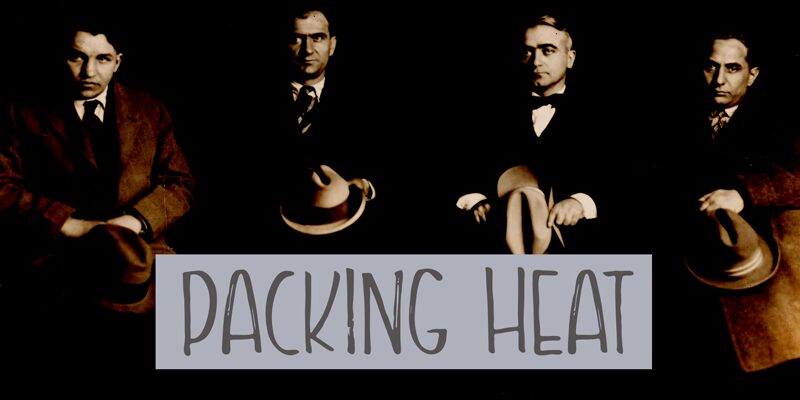
Packing Heat DEMO Regular
Packing Heat, designed by Hanoded, is a brush font that exudes a raw and energetic aesthetic with its semi-light weight. Its hand-brushed strokes offer an organic feel, bringing an authentic touch to any design. The font's irregularities and fluidity echo the spontaneity of ink on paper, making it visually dynamic and engaging.
The character of Packing Heat lies in its casual imperfection, which lends itself well to projects that require a personal, handmade impression. Whether it's for bold advertising headlines, eye-catching packaging designs or expressive editorial work, this font stands out for its ability to inject personality into words.
Packing Heat carries a versatile yet edgy vibe that can adapt to various creative contexts while maintaining its unique style presence. This makes it an ideal choice for designers looking to add a touch of warmth and character to their work without sacrificing readability and impact.